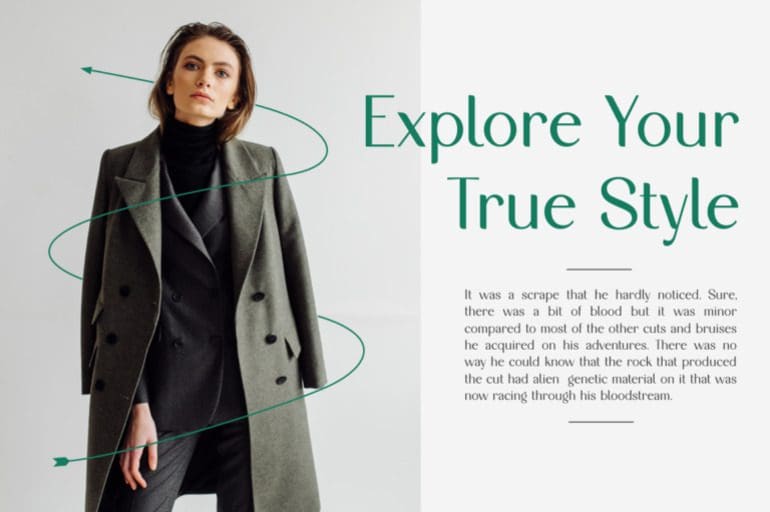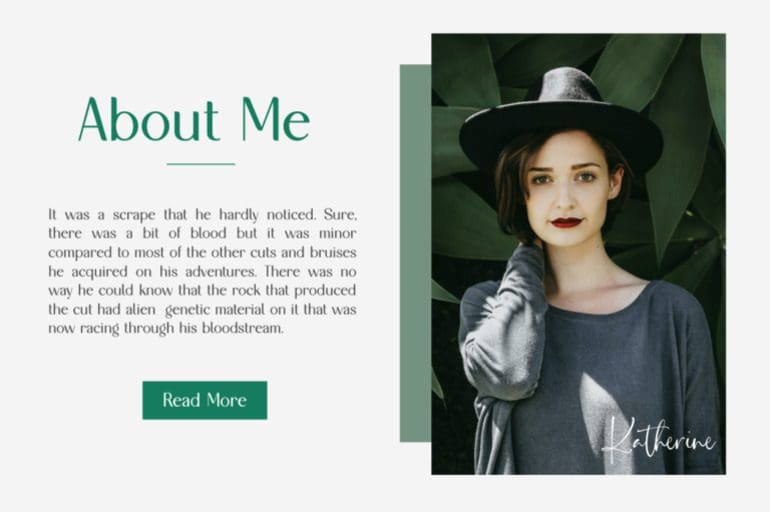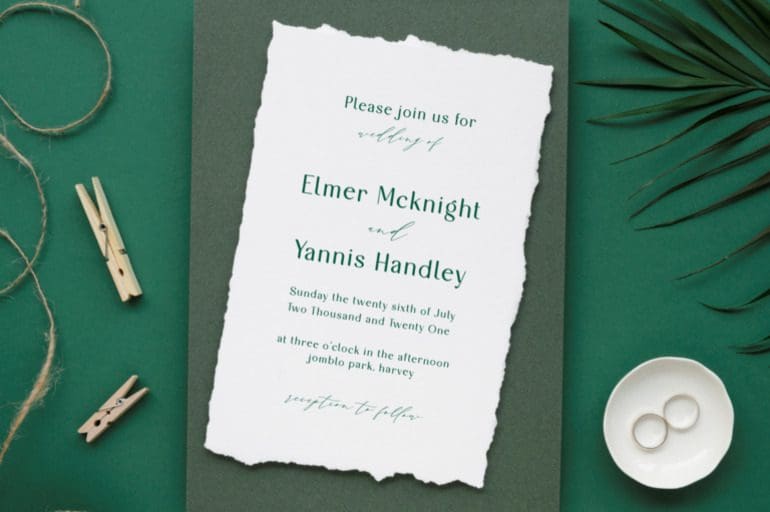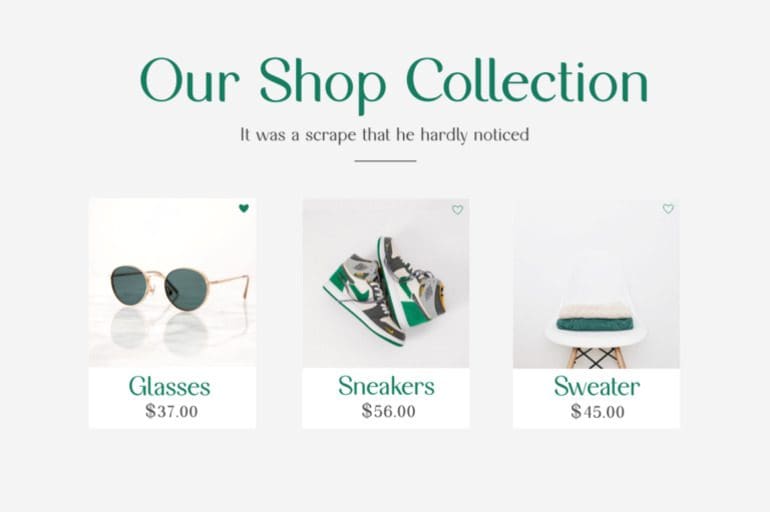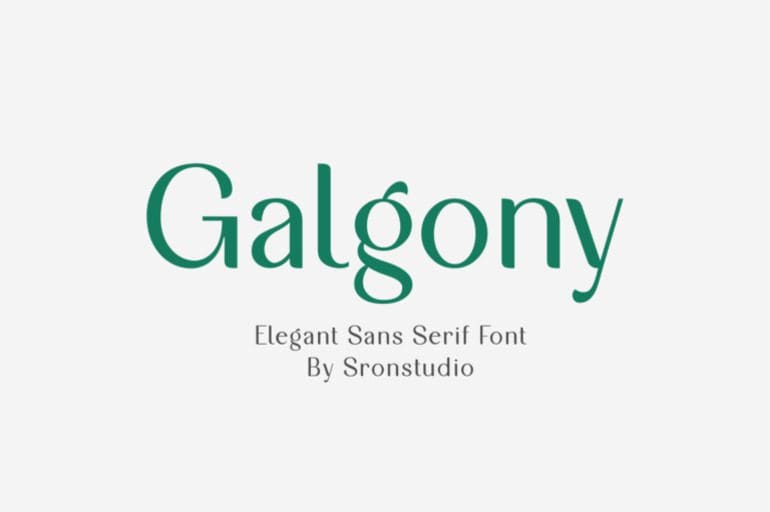
Galgony Font
Galgony an elegant sans serif font that combines modern sophistication with timeless style. With its clean lines and refined letterforms, this font is perfect for projects that demand a touch of class, such as branding, editorial design, or high-end packaging. Galgony adds a sleek and polished finish to your designs, ensuring they stand out with elegance and grace.